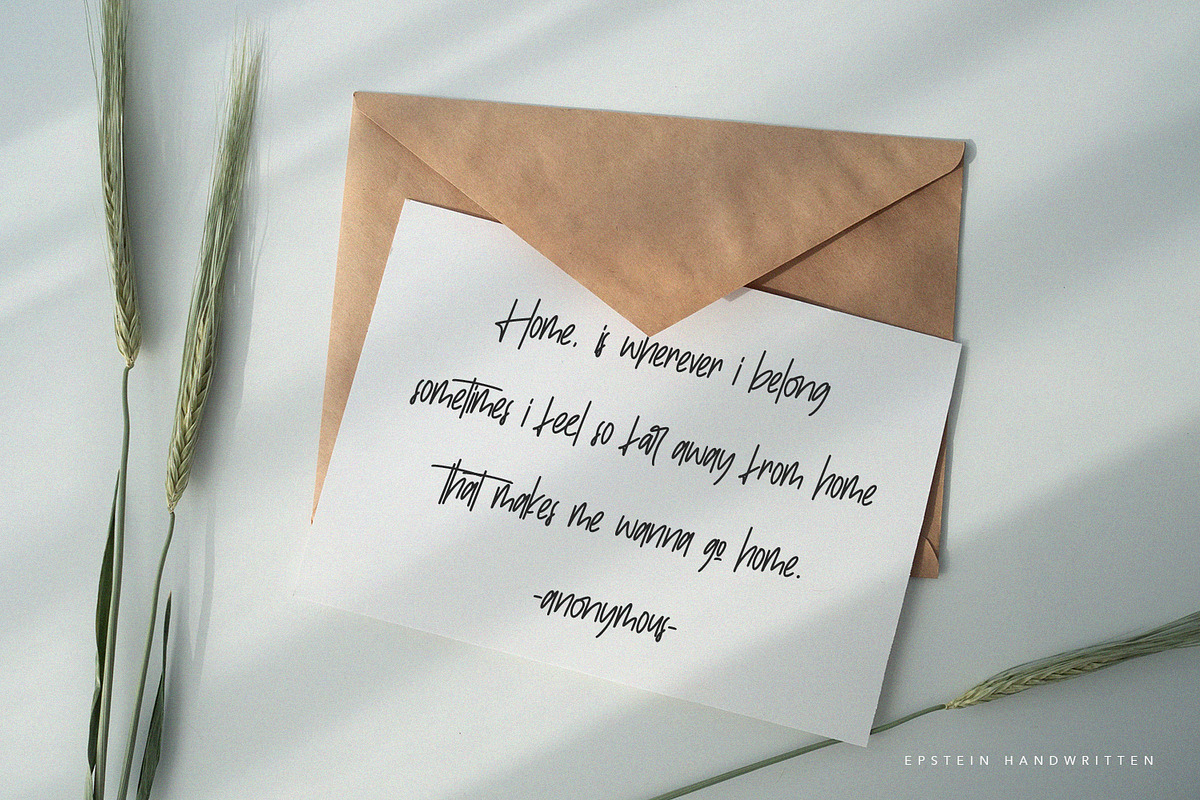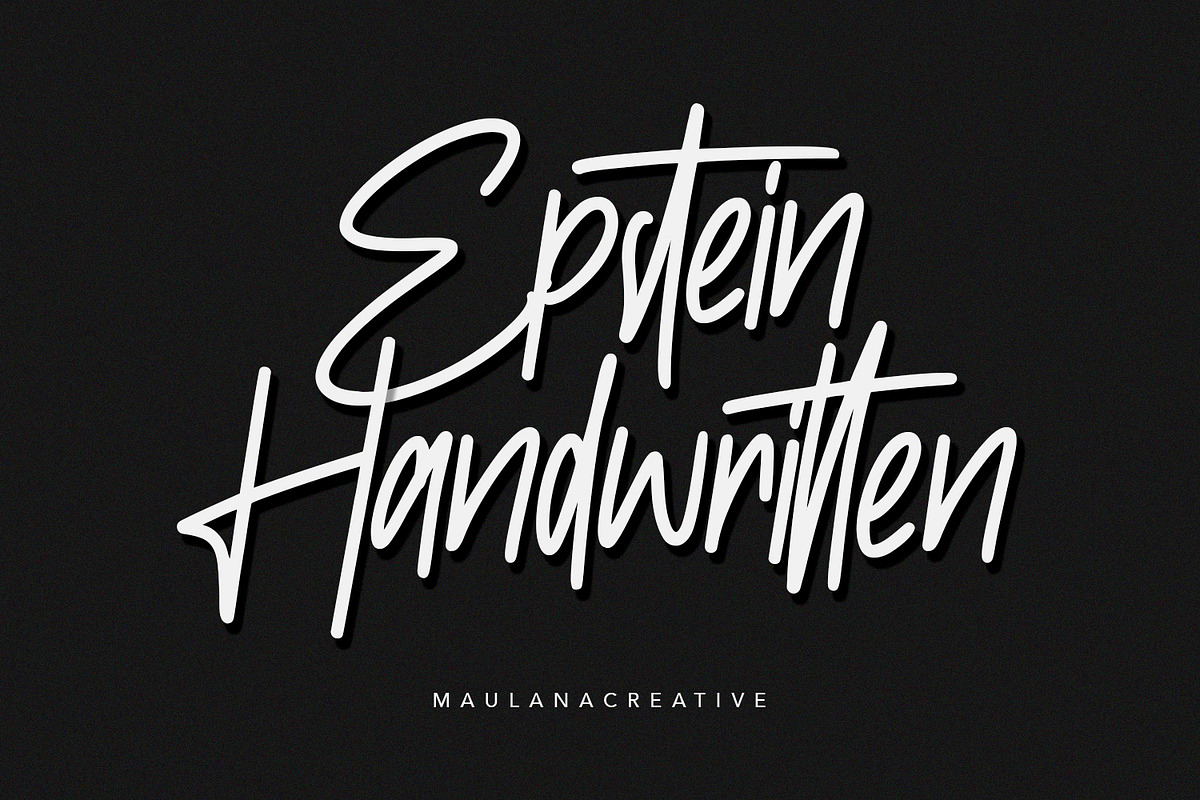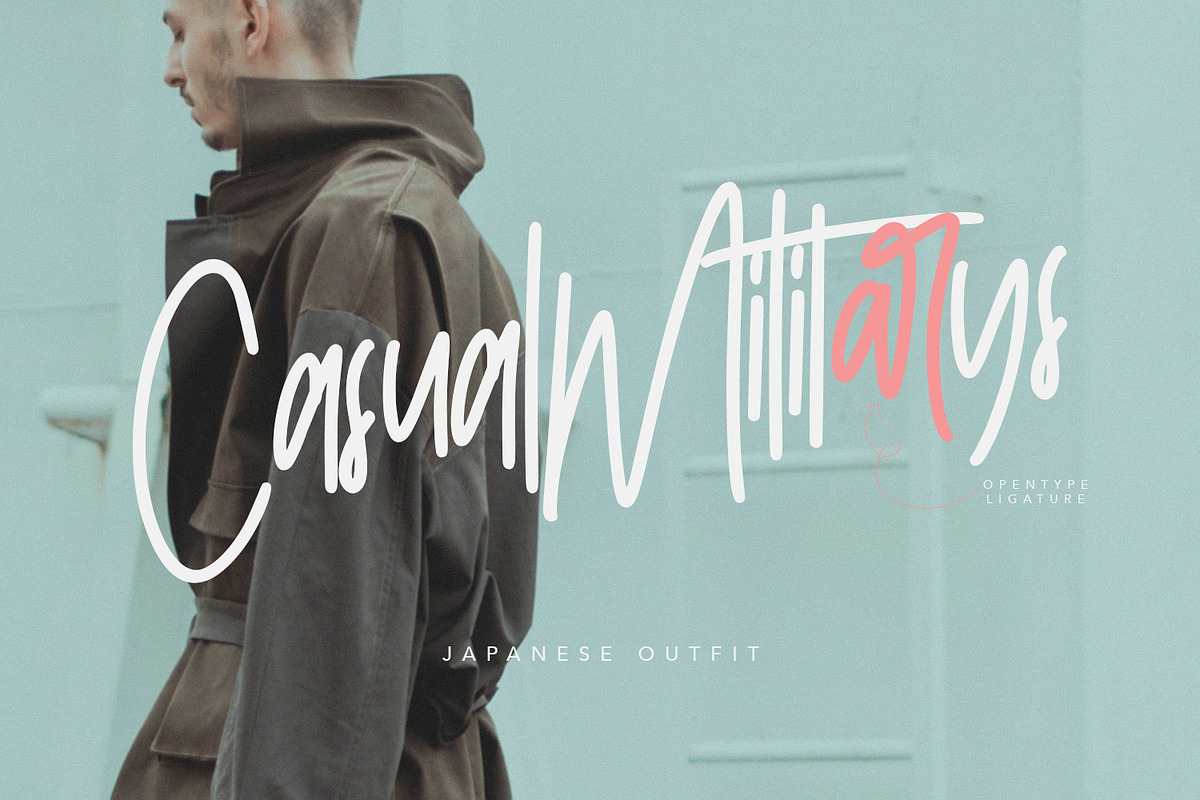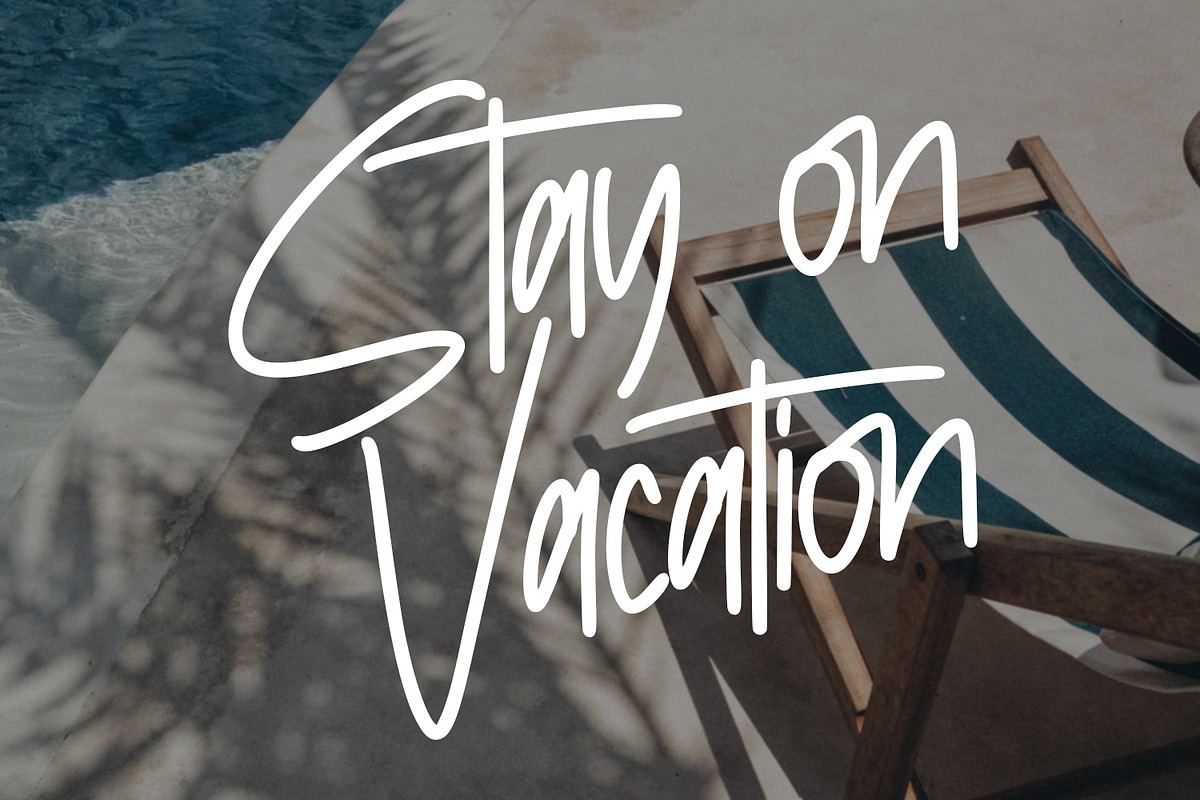
Epstein Signature Handwritten Script
Give your designs an authentic handcrafted feel. “ Epstein Signature” is perfectly suited to stationery, logos and much more.